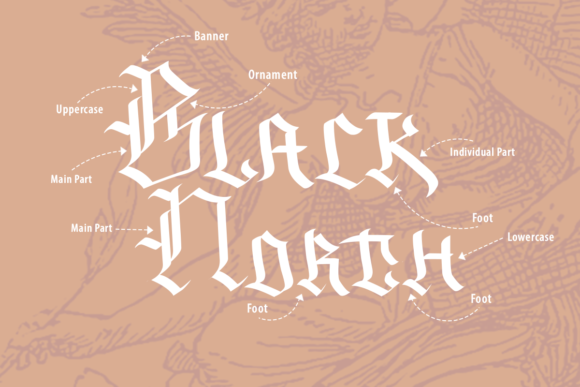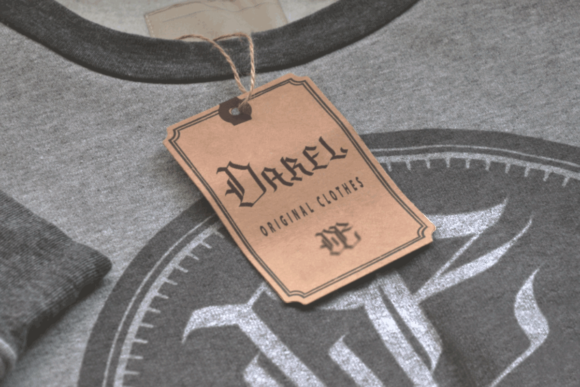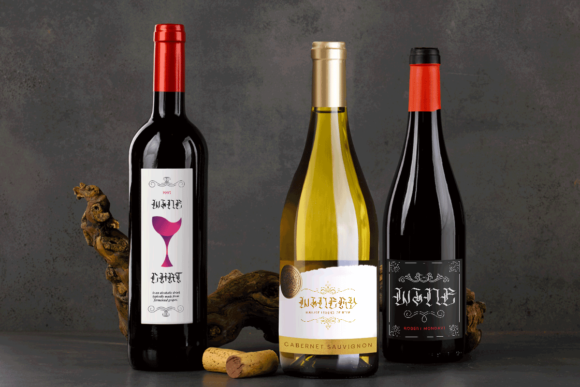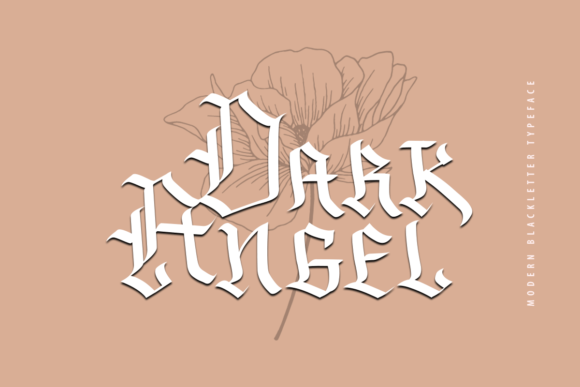
Introduction to Dark Angel Font
Dark Angel is a distinct and assertive blackletter font.
Its original and well balanced letters make this font a masterpiece Fall in love with its incredibly versatile style and use it to create spectacular designs.